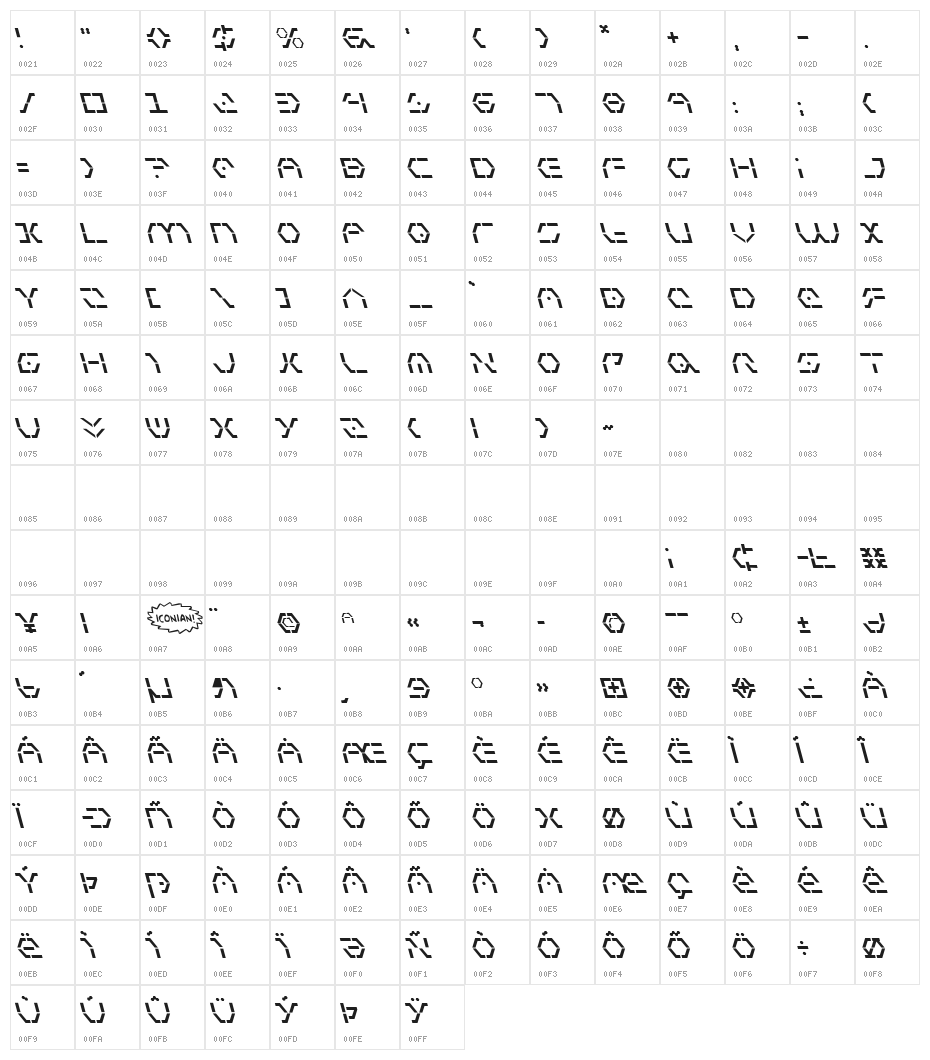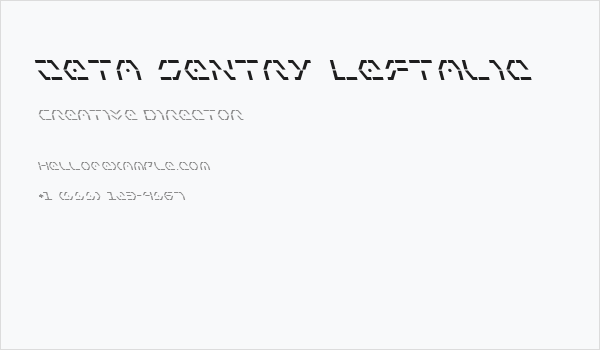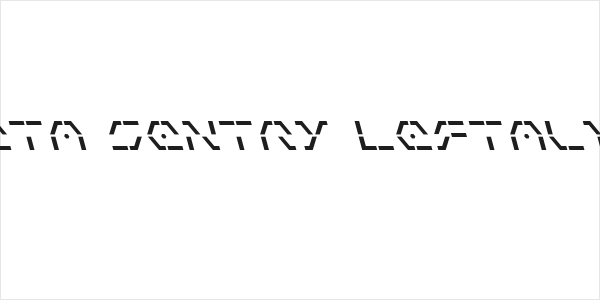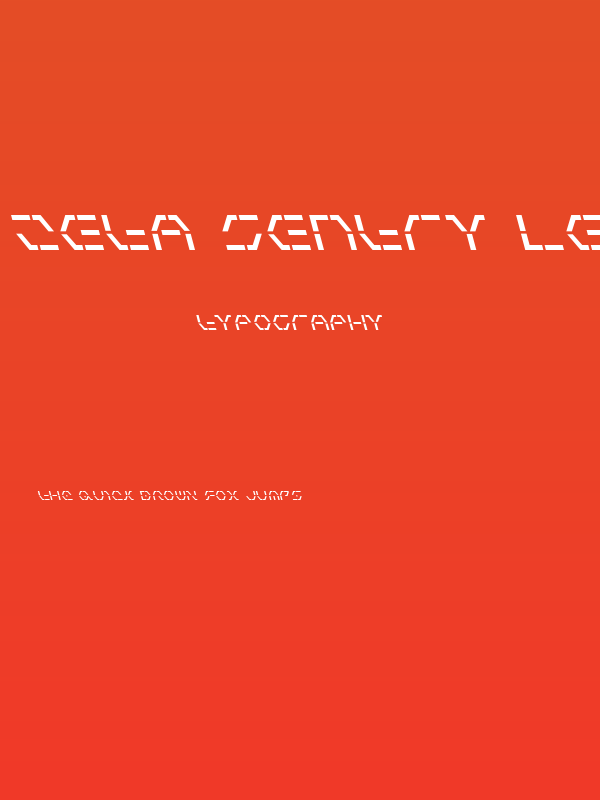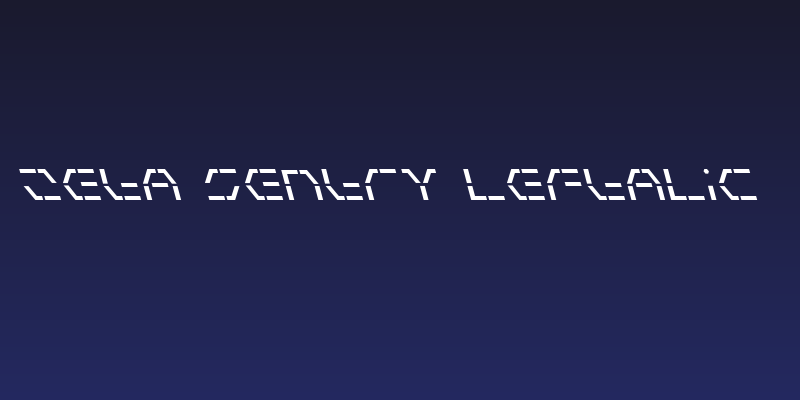
Zeta Sentry Leftalic Font
Zeta Sentry Leftalic Description
This font features a futuristic and geometric design, characterized by its angular and segmented letterforms. Each character is composed of distinct, sharp edges and breaks, creating a digital or robotic aesthetic. The uppercase and lowercase letters maintain a consistent style, with a uniform height and width that enhances readability while preserving the unique, fragmented appearance. Numbers and special characters follow the same design principles, ensuring a cohesive look across all elements. The font's bold presence and high contrast make it suitable for attention-grabbing applications.
| Proposed Projects | Ideal for sci-fi themed projects, tech branding, video game interfaces, and futuristic posters. |